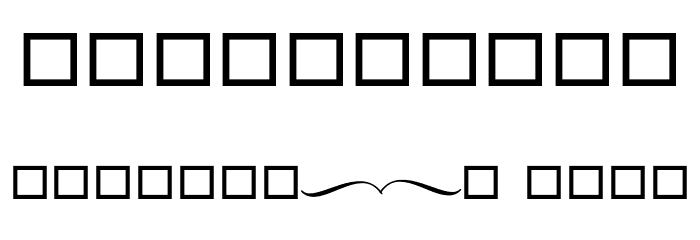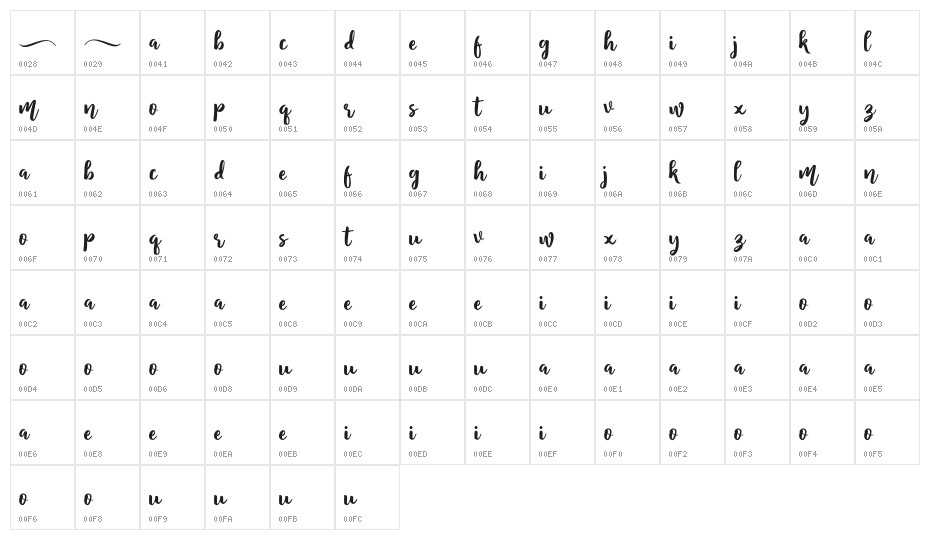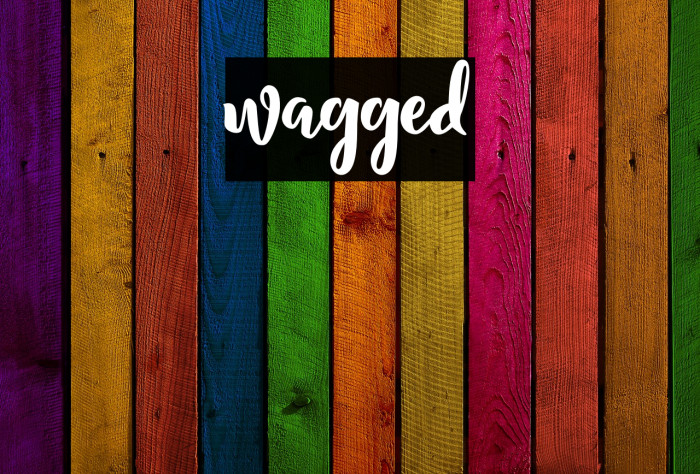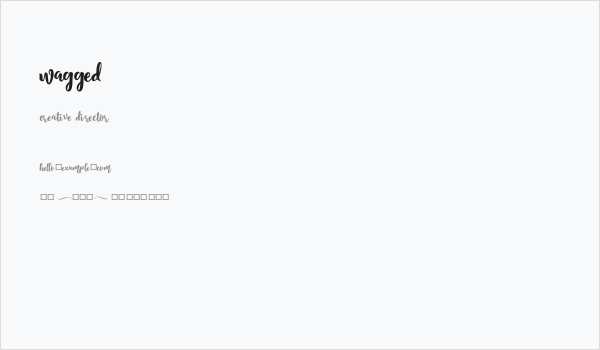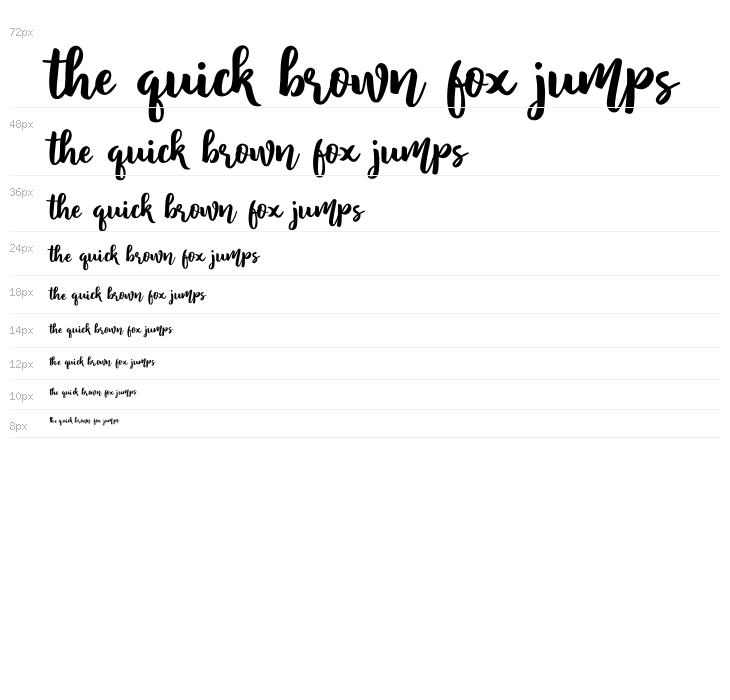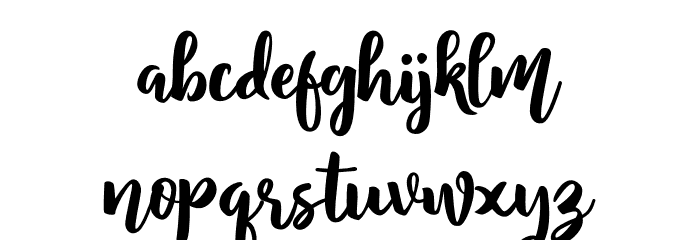
wagged Font
wagged Description
This font features a flowing, handwritten style with a modern and playful aesthetic. The characters are connected, mimicking the natural flow of cursive writing. The strokes are bold and consistent, providing a strong visual impact. The letters have a slight slant, enhancing the dynamic and lively feel of the text. The font lacks traditional uppercase letters, focusing instead on a uniform lowercase presentation. The design is versatile, suitable for a variety of creative applications. The absence of special characters and numerals suggests a focus on artistic expression rather than functional text.
| Proposed Projects | Ideal for greeting cards, invitations, branding, and social media graphics. |